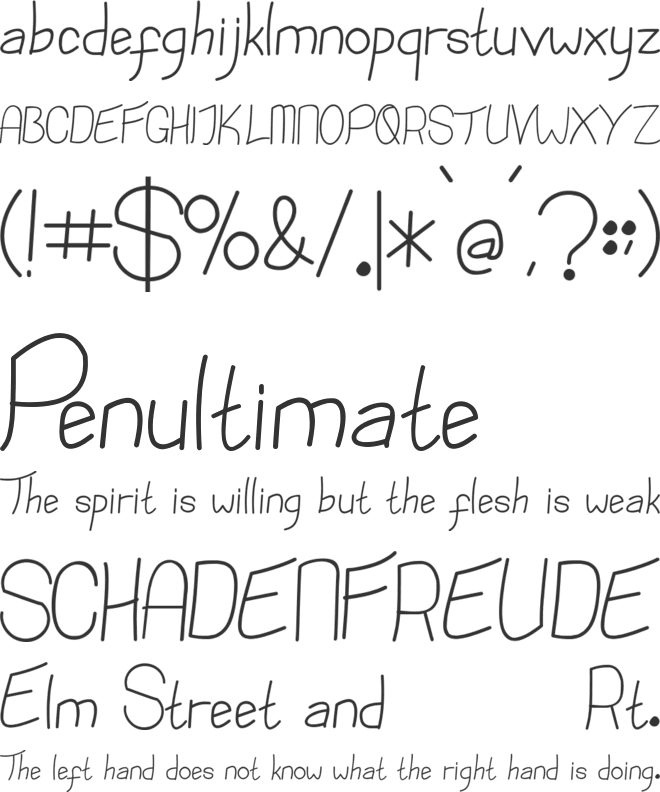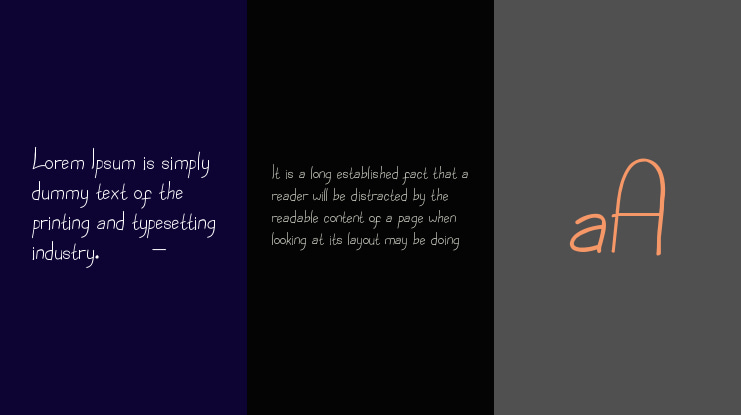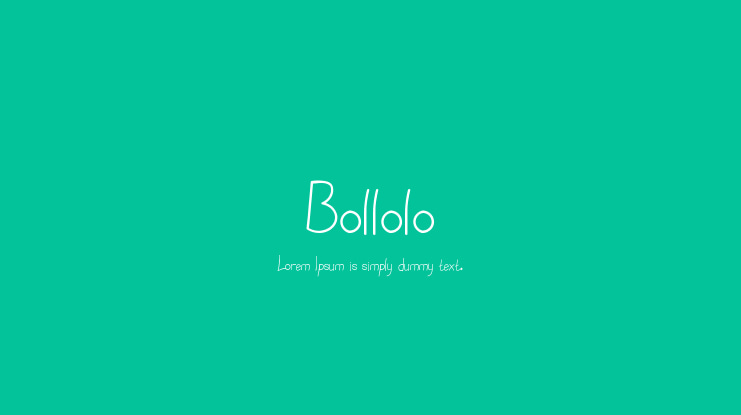
Bollolo Font
Bollolo (Handwritten) is a fun and playful font. Bollolo name is made from bolo-bolo which is mean lets be friend. This font is readable, catchy, and easy to use. This font is suitable for quotes, logo designs, kids toys, story book, and many other design projects.
Bollolo is includes: - full set uppercase and lowercase letter; - numerals; (Full Version) - multilingual support; (Full Version) - large number of punctuations; - ligatures.